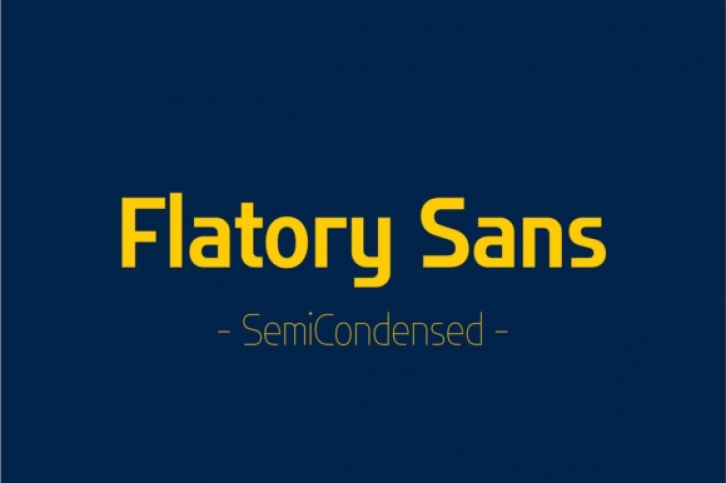
Flatory Sans SemiCondensed is a smooth sans serif font that includes a condensed and a regular version. It will complement any design need perfectly with its perfectly balanced mix of the smooth and sharp!